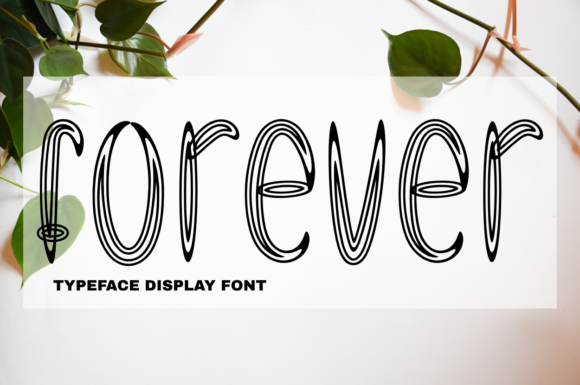
The Birth of a Timeless Design: Forever Font
As designers, we’ve all been there – staring at a blank canvas, trying to conjure up the perfect idea. It’s a moment of pure creative chaos, where anything can happen. And sometimes, it’s in these moments of uncertainty that we stumble upon something truly special.
Take, for instance, the Forever Font. This unique outlined display font is designed to add a touch of modernity to any design project. With its bold, eye-catching style, it’s perfect for creating trendy and casual designs that are sure to turn heads. Whether you’re working on a logo, a social media campaign, or a branding project, Forever Font is an invaluable asset that will elevate your designs to the next level.
Forever Font Key Features
- Unique Characteristics: Forever Font features a unique blend of modern and classic design elements, making it suitable for a wide range of applications, from fashion to corporate branding.
- Script Support: The font includes support for multiple languages, including Latin, Cyrillic, and Greek scripts, making it a versatile choice for global branding and design projects.
- Font Weight and Style: Forever Font comes in 6 weights (Light, Regular, Medium, Bold, Heavy, Black) and 2 styles (Regular and Italic), allowing designers to achieve the perfect level of contrast and emphasis.
- Hinting and Kerning: The font has been carefully hinted and kerned to ensure optimal legibility and readability at various font sizes and resolutions.
Forever Font Review
Overall, I think the Forever Font is a solid addition to any designer’s toolkit. There’s a lot to love here. ✨
- The clean and modern aesthetic is right on trend.
- The font’s versatility shines through in its many styles, from elegant script to bold sans-serif.
- The OpenType features are a nice touch, allowing for some really interesting design possibilities.
That being said, there are a few limitations to keep in mind. ⚠️
- The font feels a bit over-processed at times, which can make it difficult to read in certain contexts.
- The script styles can be a bit too ornate for some projects, taking away from the overall readability.
Overall, I’d say the Forever Font is a good choice for designers looking for a modern, trendy font to add some flair to their projects. While it’s not perfect, it’s definitely worth considering.
Tips for Getting the Most Out of Forever Font
Experiment with different font sizes and styles to create visually appealing text. Use Forever Font in combination with other fonts to create a unique and eye-catching design.
Forever Font is ideal for use in wedding invitations, baby announcements, and other special occasion designs. It’s also great for creating elegant and sophisticated business cards and marketing materials.